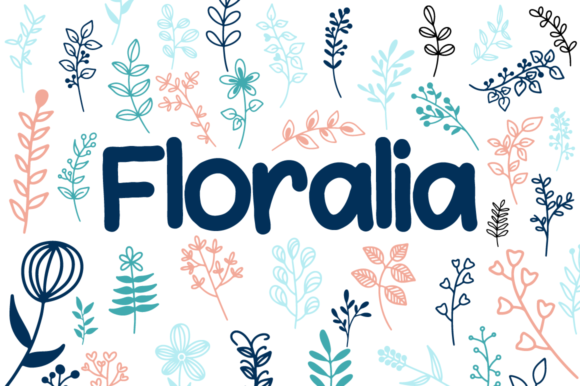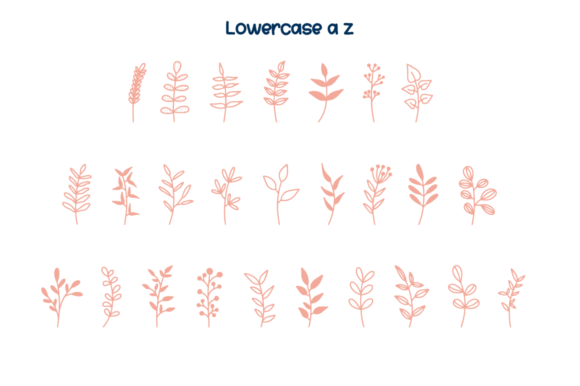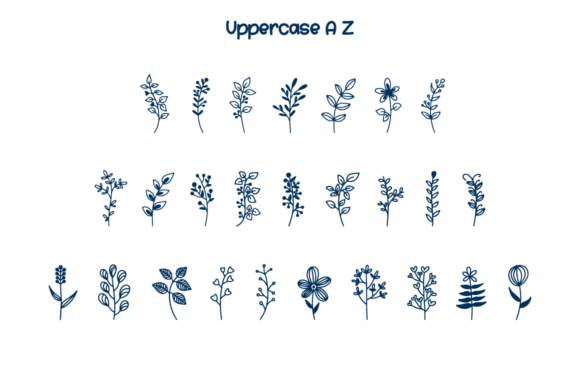
Floralia Font
About Floralia Font
Absolutely! “Floralia” is a delightful and charming dingbats font that can add a touch of sweetness and beauty to your creative projects. With its unique floral-inspired designs, this font is perfect for a wide range of crafty ideas, from letterheads and titles to stationery and more.
“Floralia” is designed with intricate floral ornaments and motifs that bring a sense of elegance and whimsy to your designs. Each character in the font is crafted with attention to detail, showcasing delicate flowers, leaves, and other botanical elements. This makes “Floralia” an excellent choice when you want to incorporate nature-inspired elements into your designs.
Whether you’re working on invitations, greeting cards, scrapbooking, or any other craft project, “Floralia” can be a valuable asset in your font collection. The unique and beautiful floral designs can serve as decorative elements, borders, or even standalone focal points in your designs.
One of the advantages of using “Floralia” is its versatility. The font offers a variety of floral designs, including different types of flowers, leaves, branches, and more. This allows you to mix and match the elements to create custom compositions that suit your specific project.
Another benefit of “Floralia” is its ability to add a personal touch to your creations. The handcrafted and whimsical nature of the font brings a sense of warmth and uniqueness to your designs. It can help create a personalized and heartfelt aesthetic, perfect for projects like wedding invitations, love letters, or any design that requires a touch of romance.
When using “Floralia,” you can experiment with different colors, sizes, and arrangements to create visually appealing compositions. The floral motifs can be combined with other fonts or graphics to create a cohesive and eye-catching design.
In summary, “Floralia” is a lovely and sweet dingbats font that offers a range of beautiful floral designs. Its versatility, attention to detail, and ability to add a personal touch make it an excellent choice for various crafty ideas, including letterheads, titles, stationery, and more. Let your creativity bloom with “Floralia” and create enchanting designs that captivate and delight!